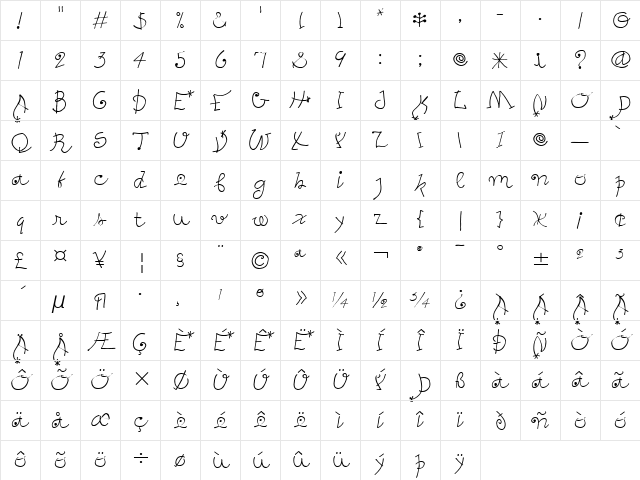
Peters Miro Too ITC Thin
Style: Thin
Design Context for Peters Miro Too ITC
Peters Miro Too ITC is a composed and adaptable typeface that performs quietly and consistently across a wide range of design contexts. Its slender proportions lend an understated elegance to any composition.